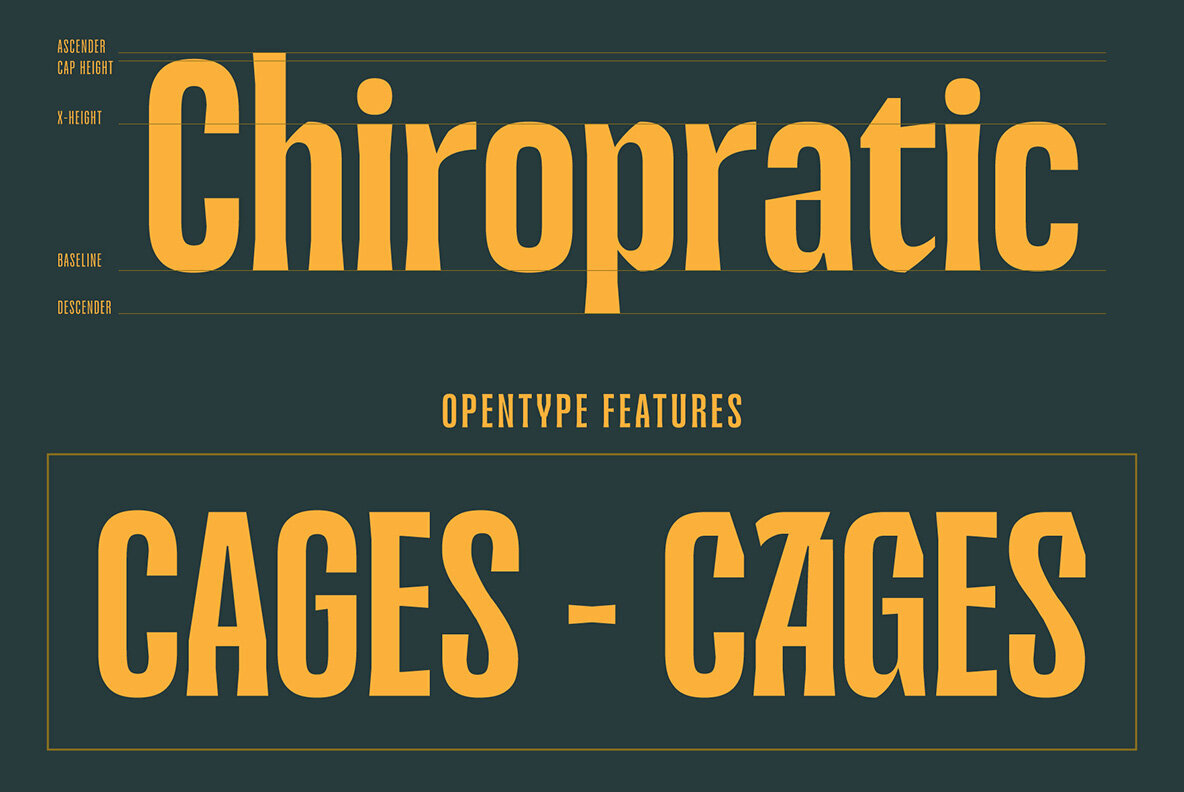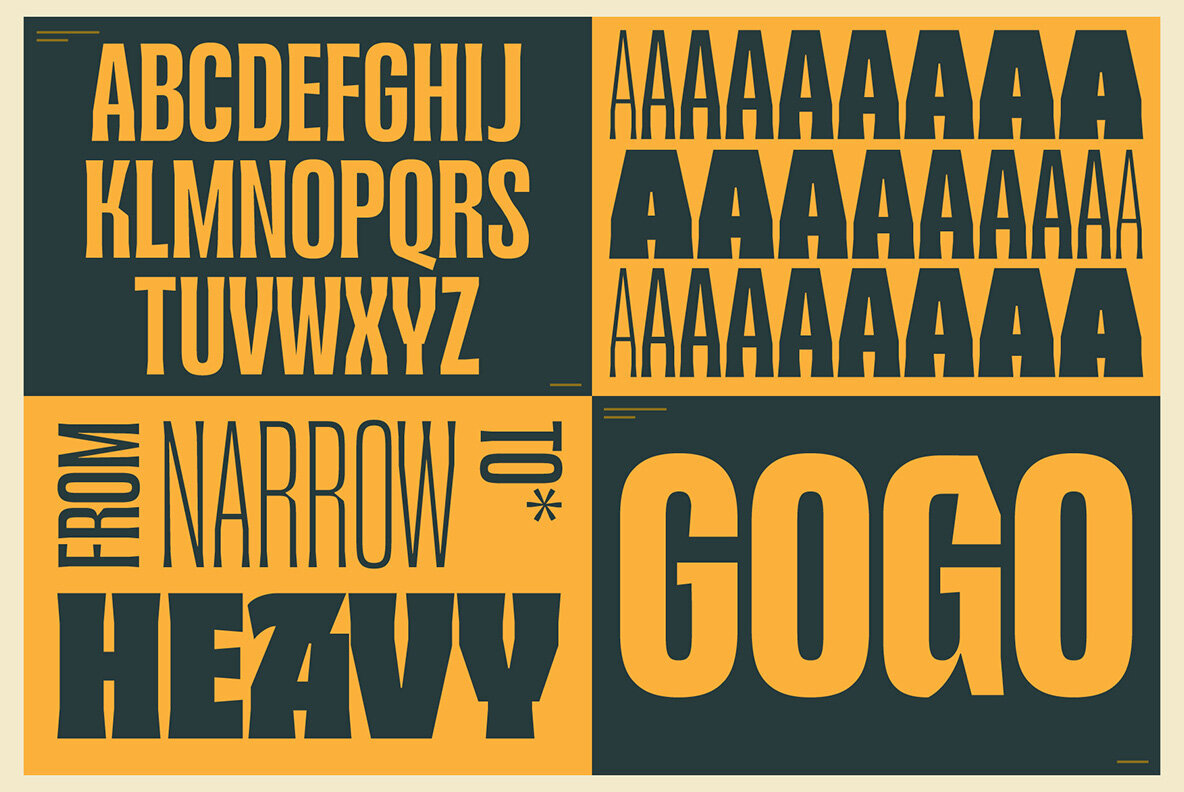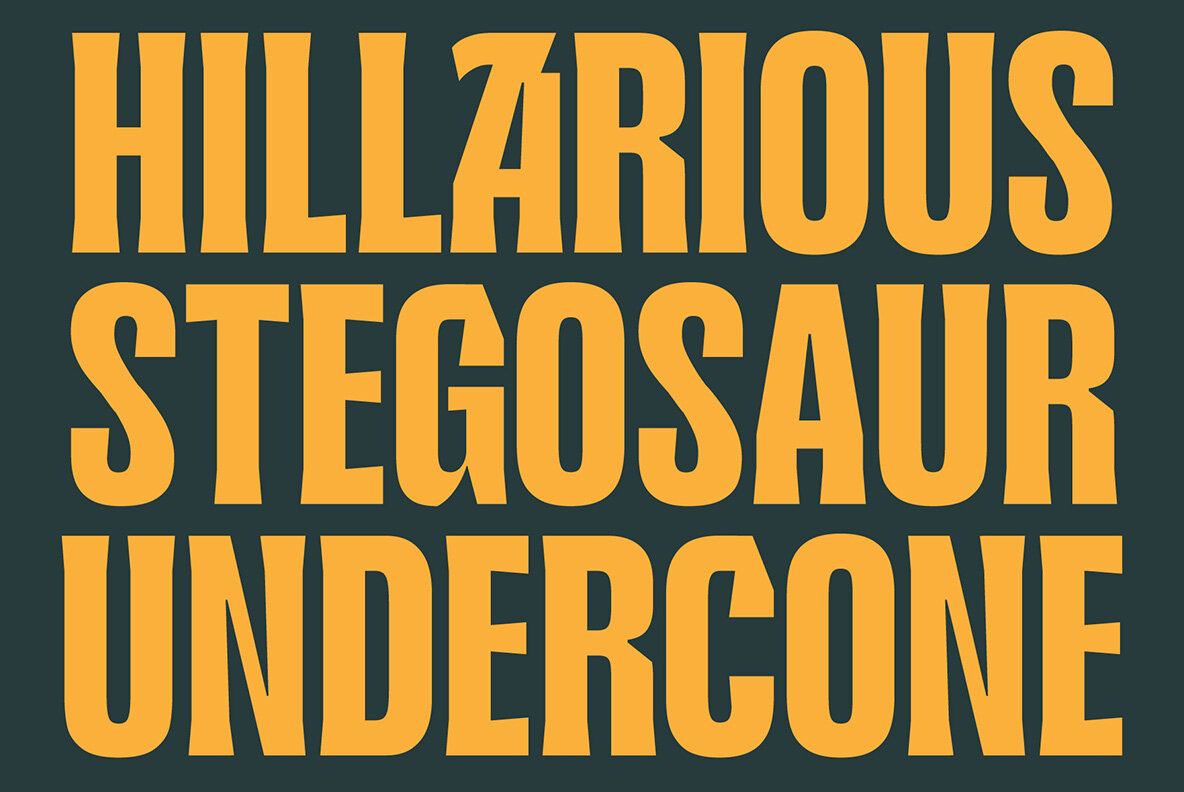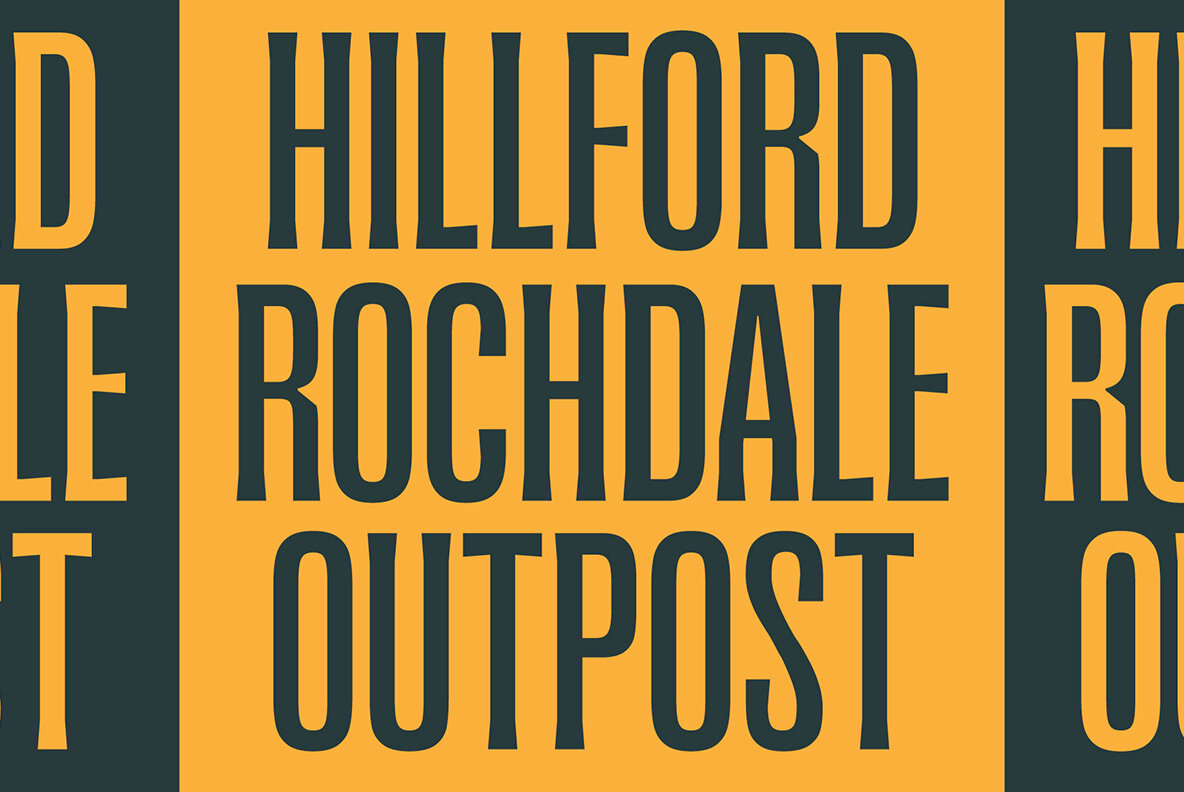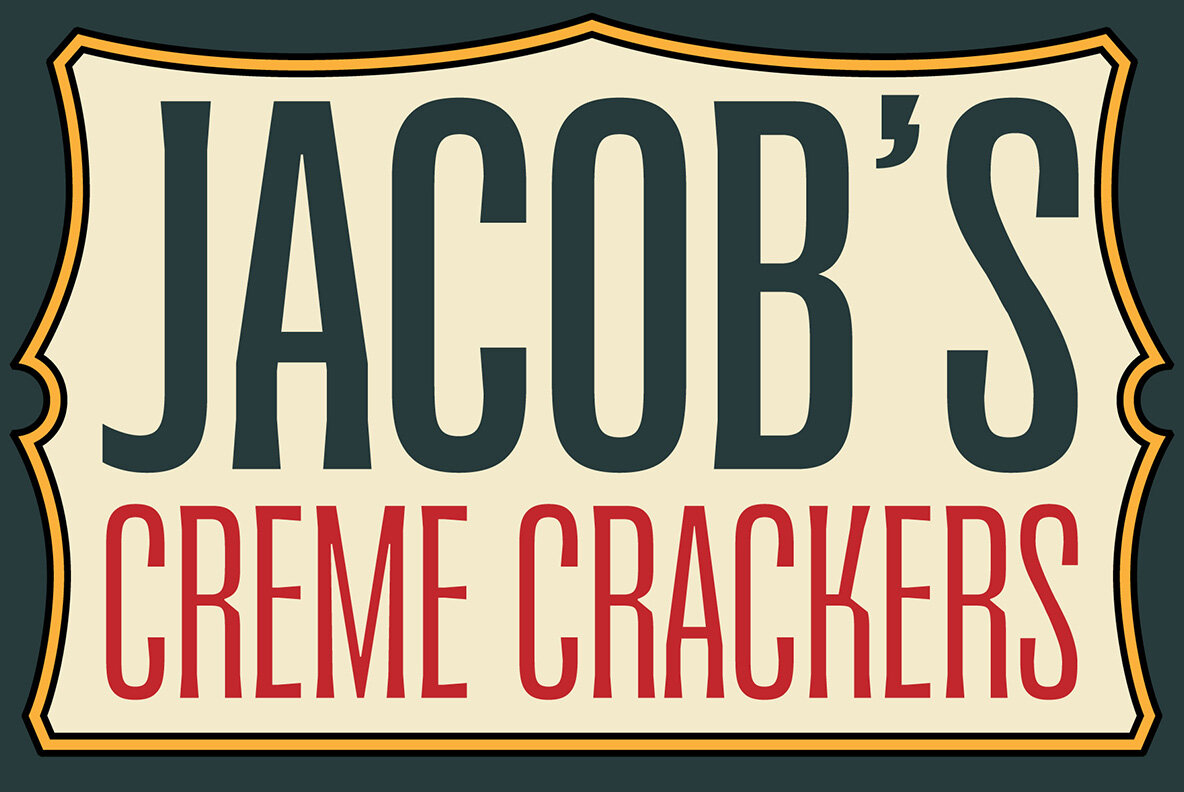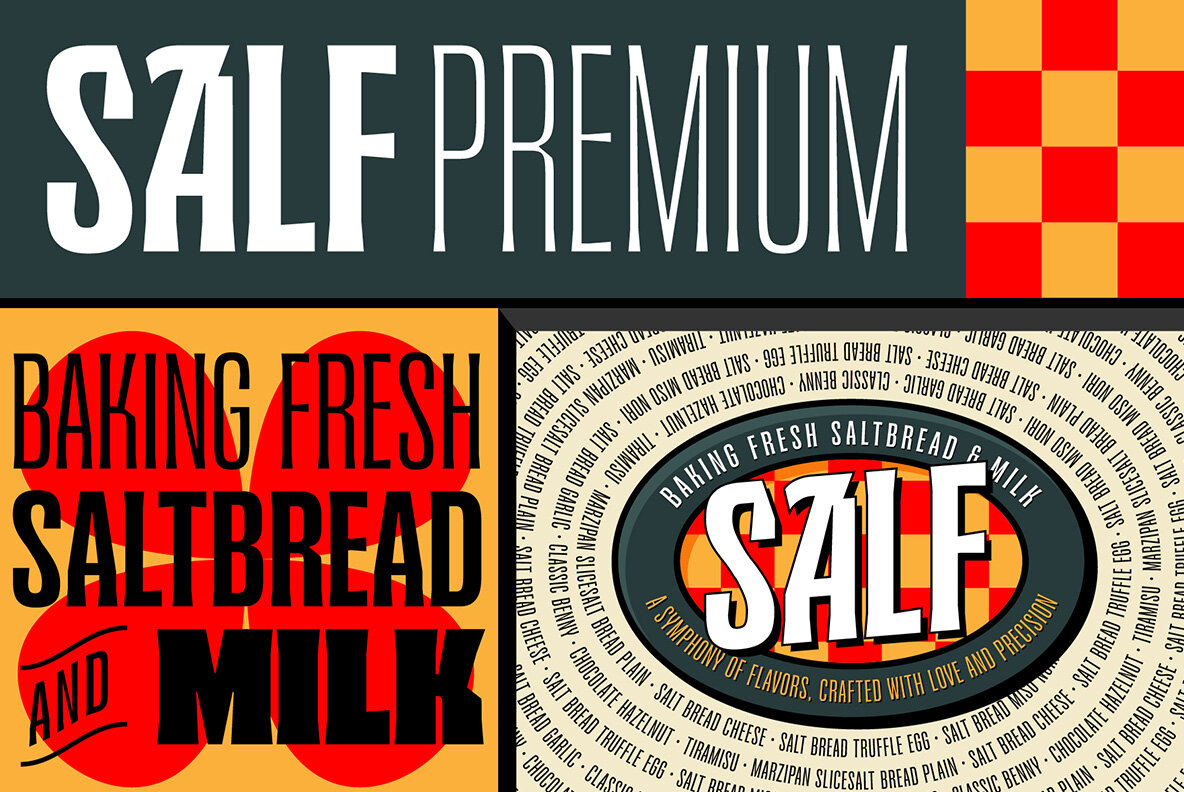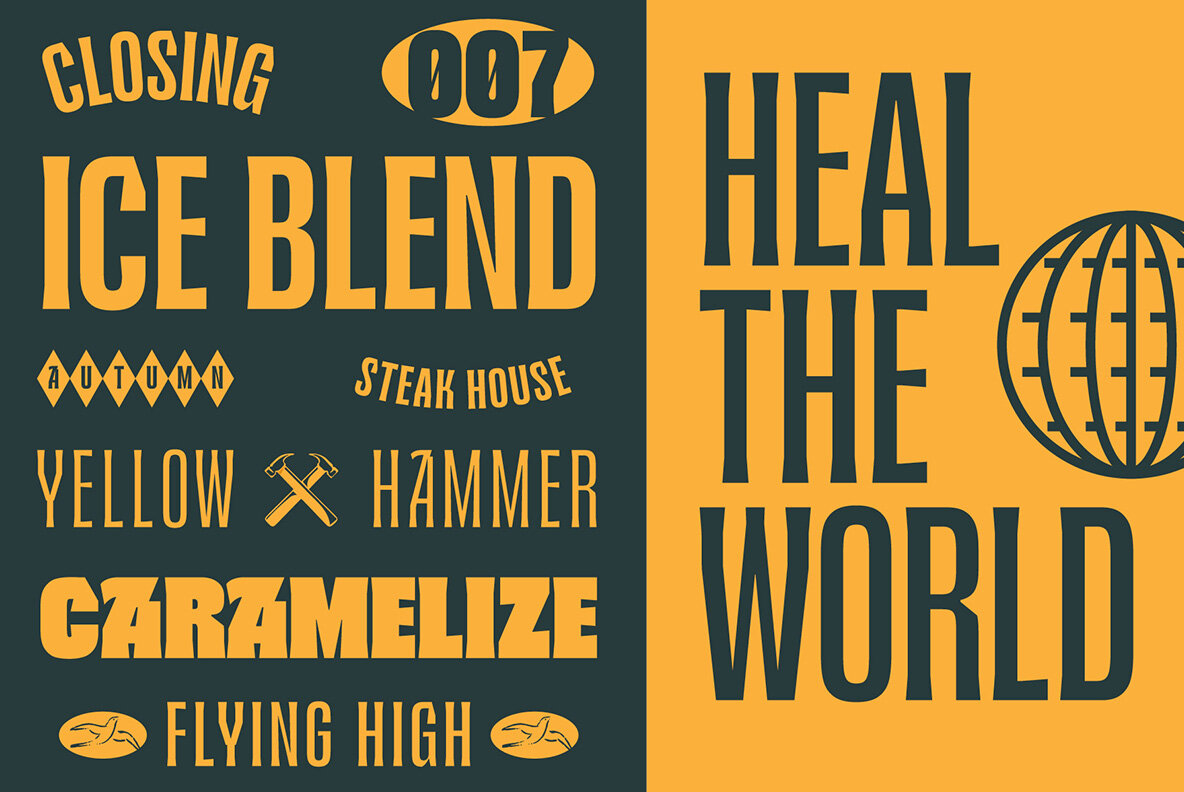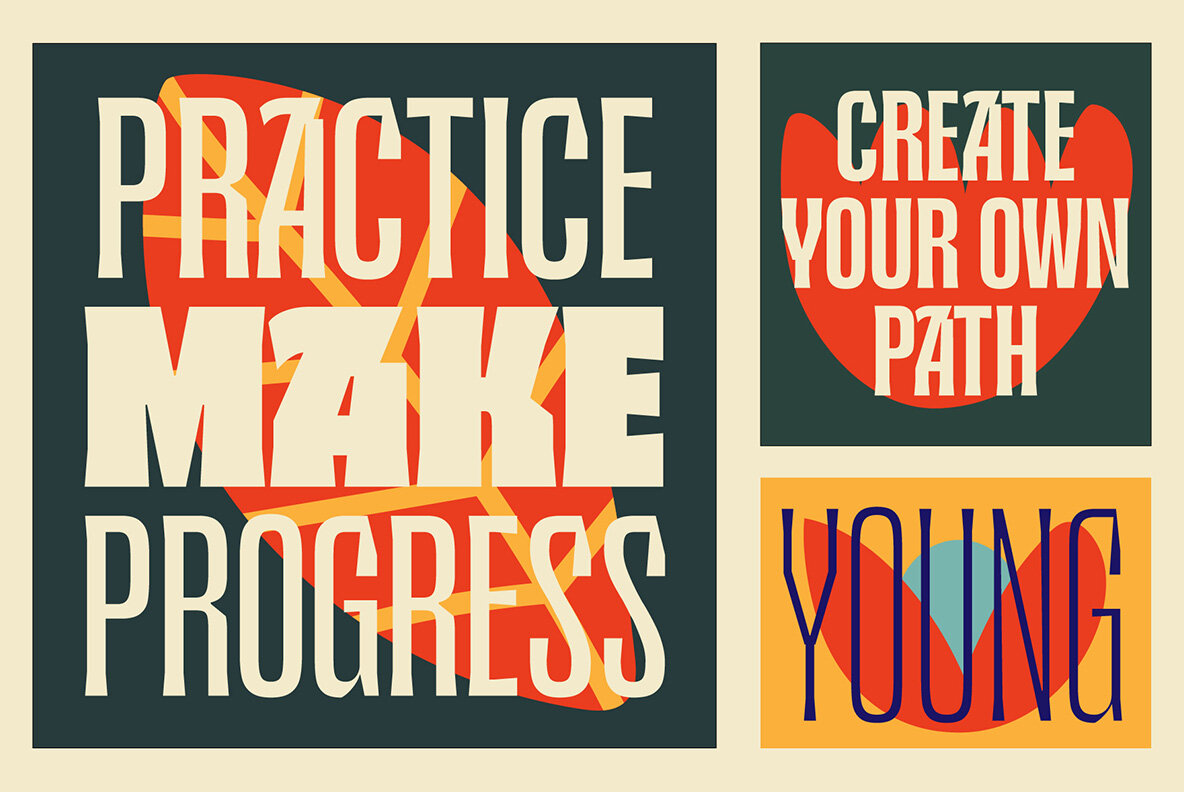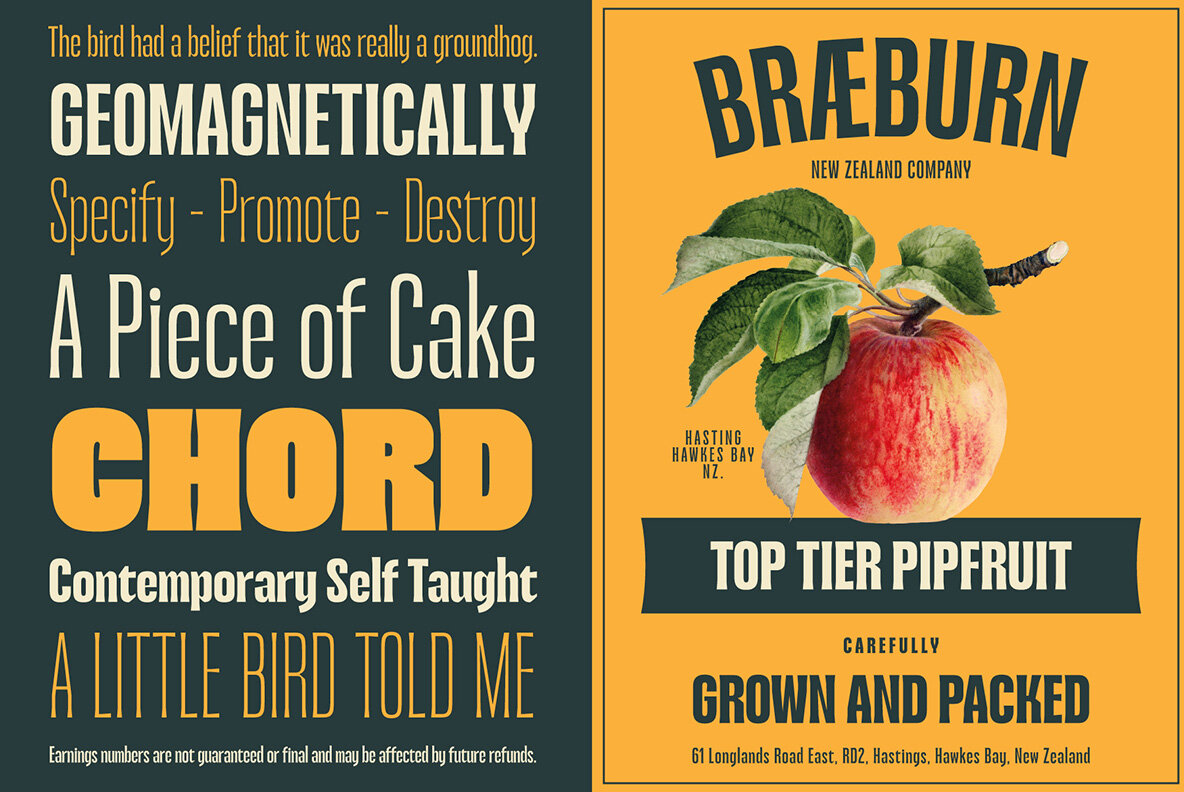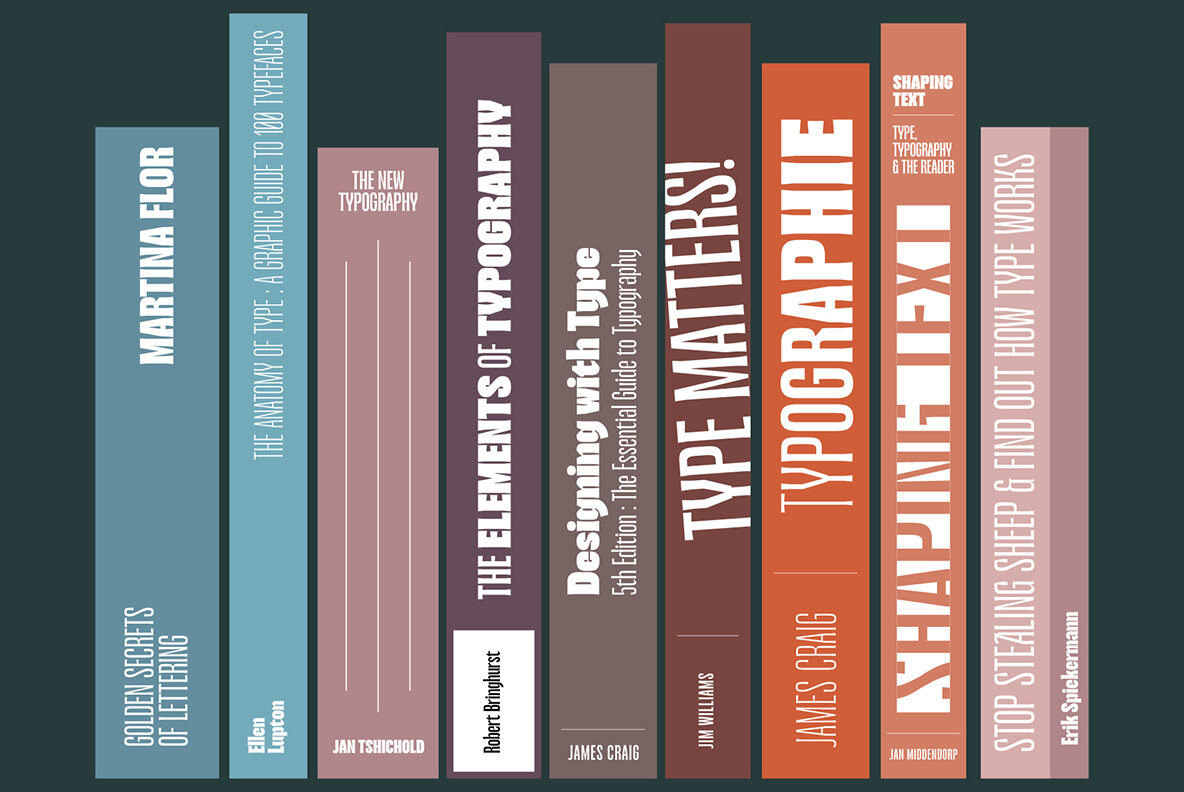
Jacoma Font
This bold font delivers a powerful visual impact, making it perfect for modern and minimalist design projects. Its clean lines and thick, strong appearance work exceptionally well for headlines, branding, advertising, and poster designs. Ideal for designers seeking a legible typeface that communicates professionalism and contemporary style in various creative contexts.